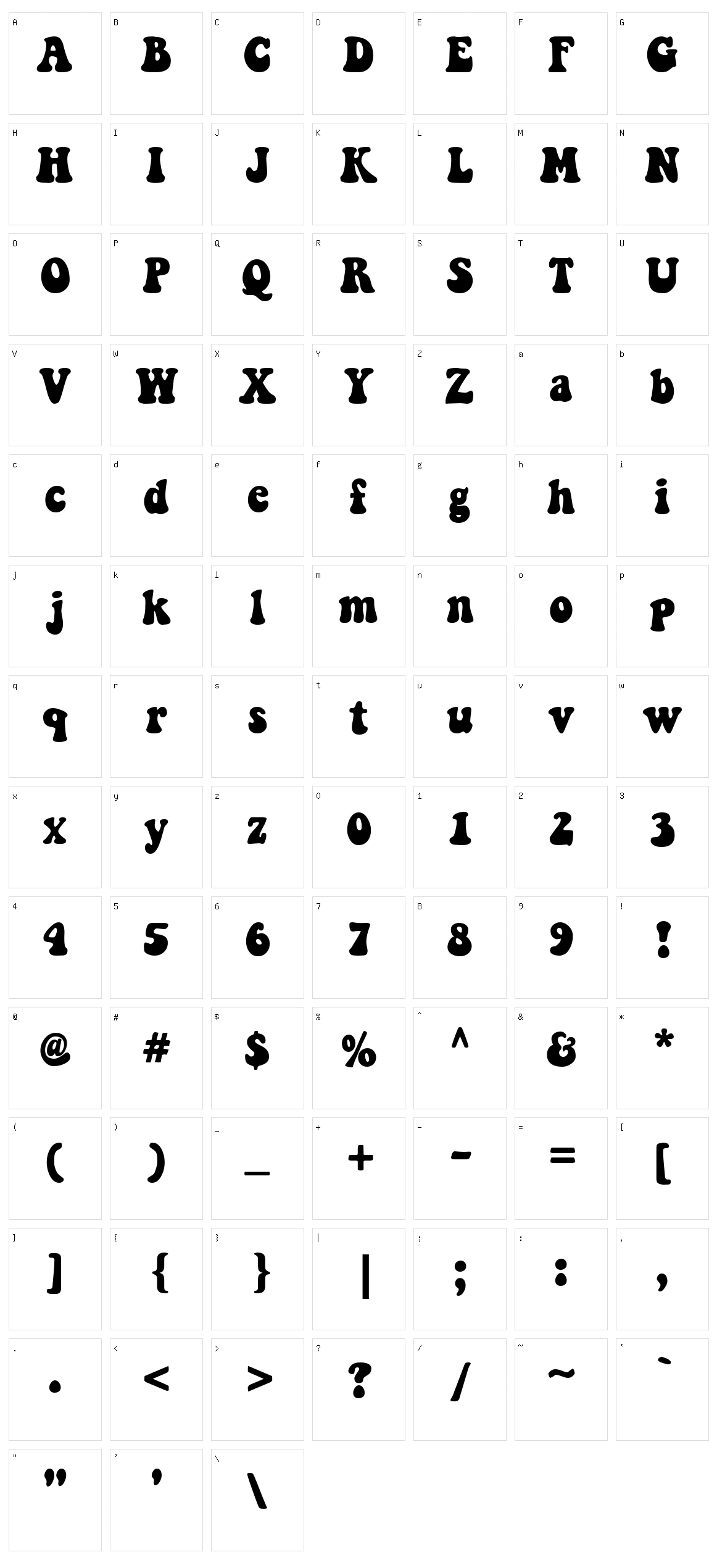
The free font Keep on Truckin' FW is carefully designed by Brain Eaters Font Co., showcasing a thoughtful balance of creativity and usability and falls under the Groovy font style. When you download the ZIP file, it contains only 187.84 KB of font files, making it lightweight and quick to download. Please review the license details below to understand permitted usage and distribution rights. If license information is not available, we recommend using this font for personal projects only or contacting the author directly for commercial usage permissions.